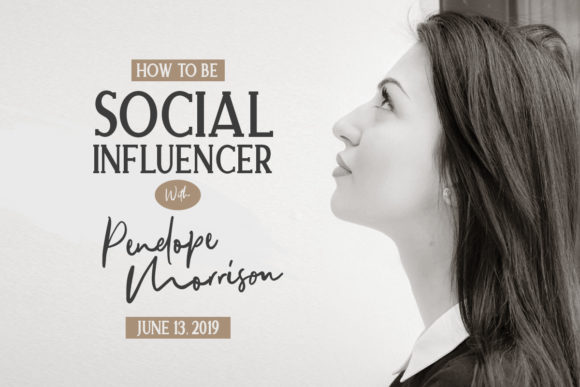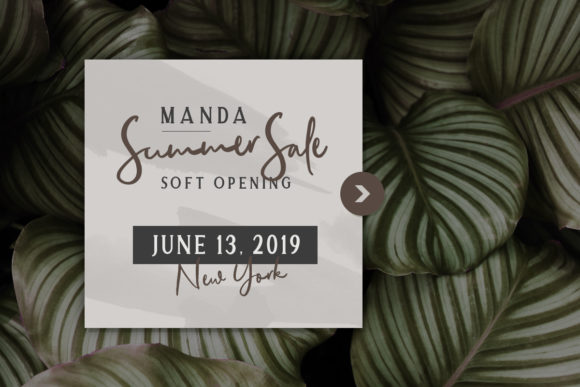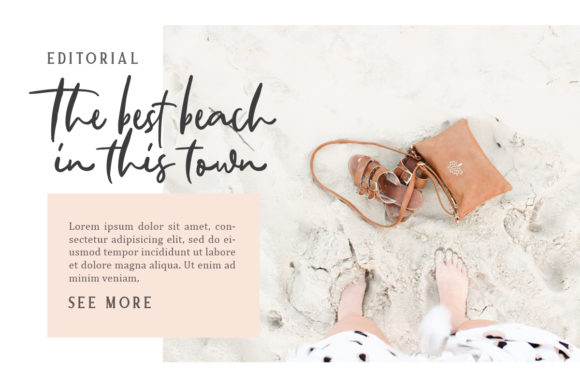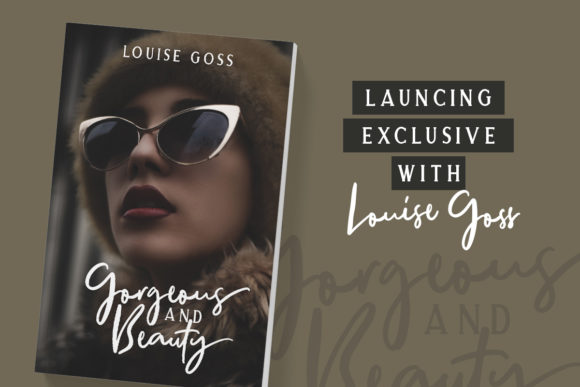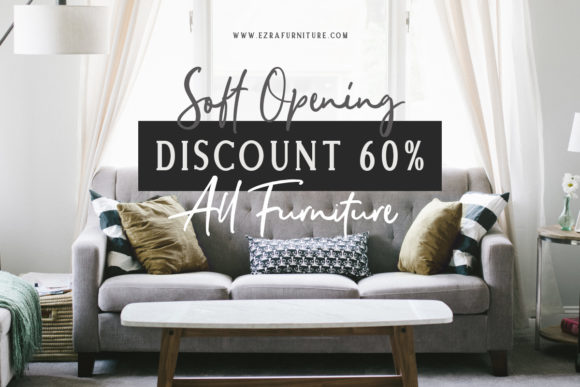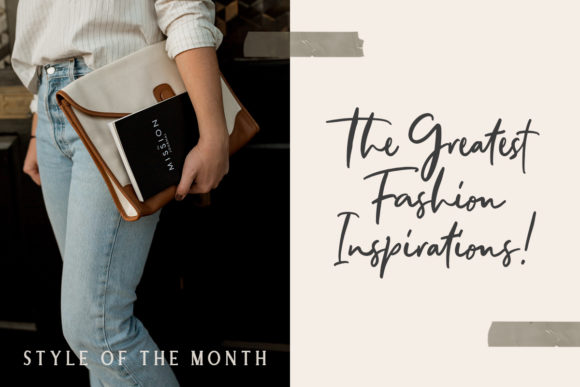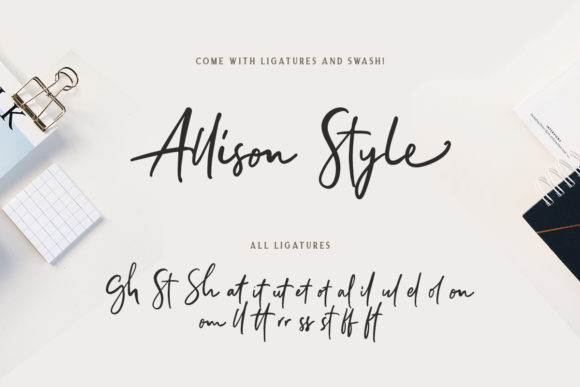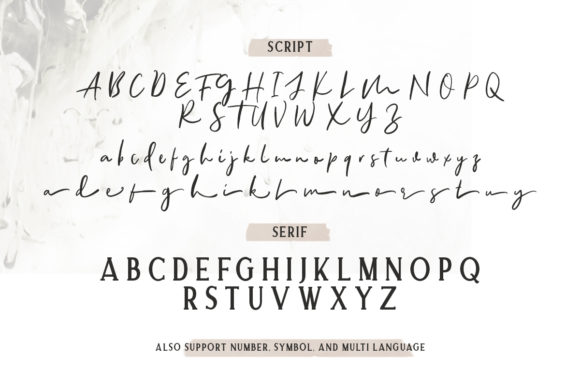
Allison Style Duo Font
About Allison Style Duo Font
The Allison is an amazing font duo. It comes with a delicate serif and a free handwritten script which can be combined perfectly.